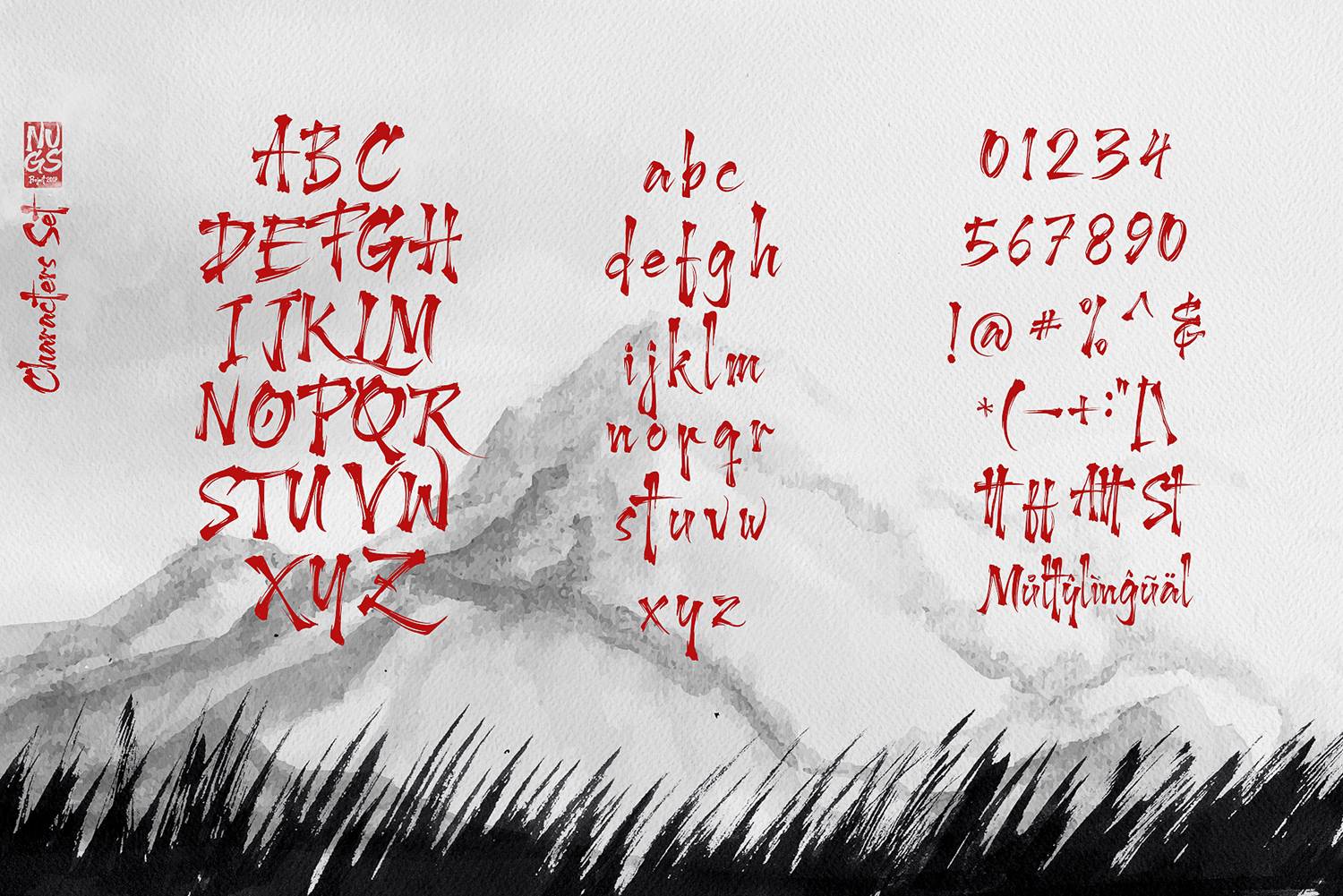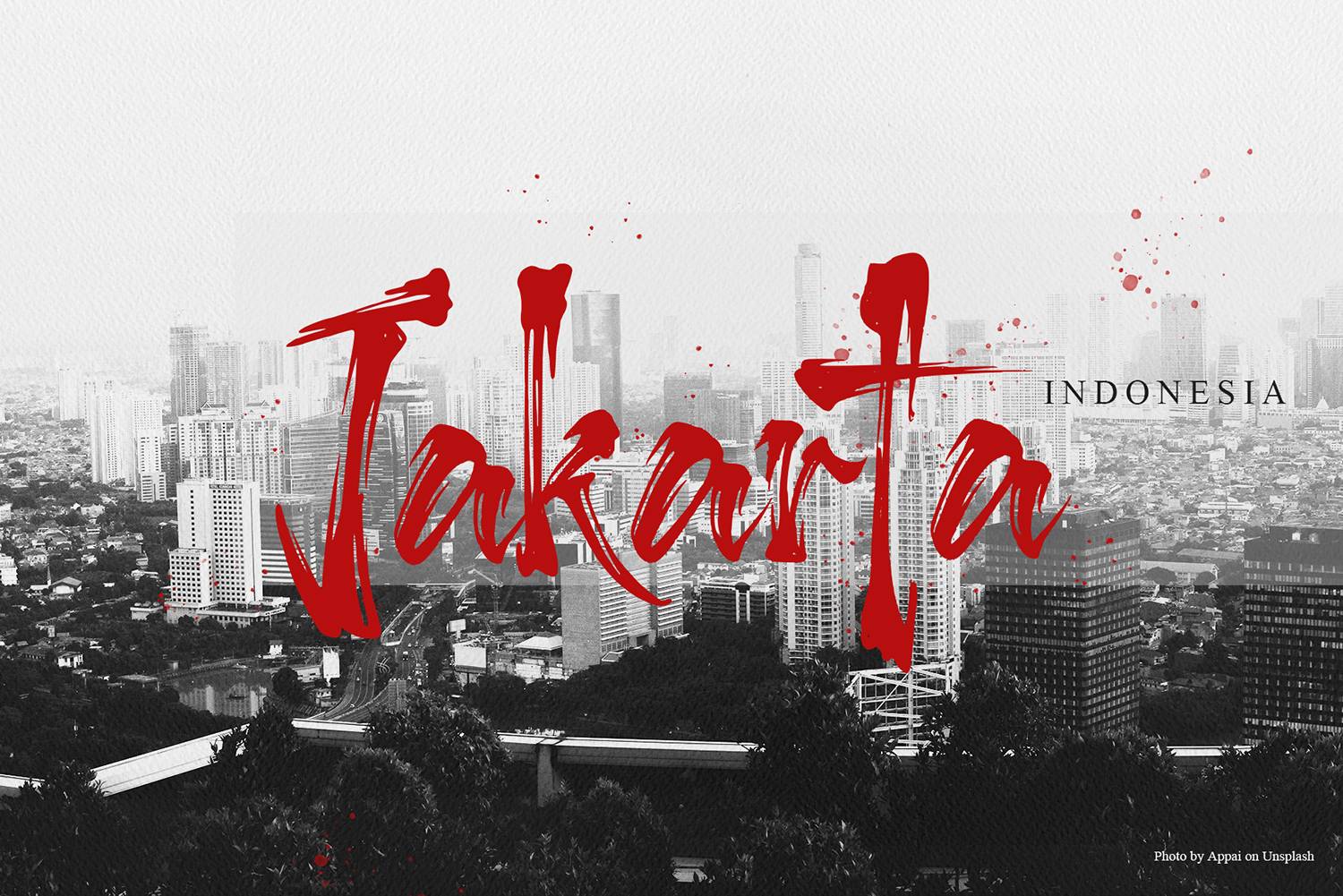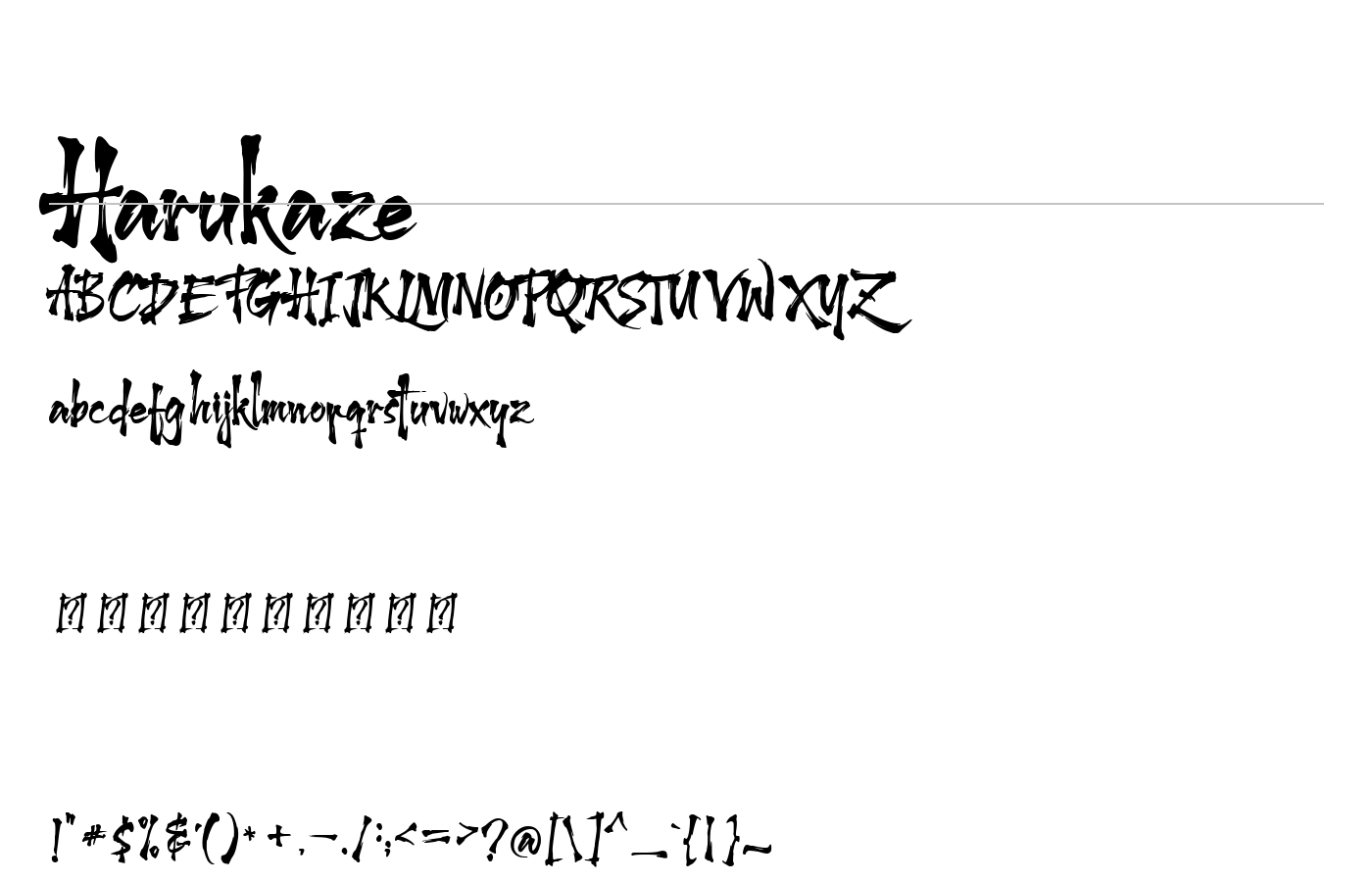
Harukaze is a bold, expressive script font with a strong calligraphic influence, featuring sharp, rough brush strokes that give it an energetic and dynamic feel. Its irregular, hand-painted style adds a sense of creativity and individuality, making it perfect for artistic, edgy branding, posters, or headlines where personality and impact are key. This font works best in designs that seek a raw, handcrafted look rather than formal or traditional text settings.
Harukaze Font
About Harukaze Font
| Font family | Harukaze Font |
| Designer | Andrie Nugrie |